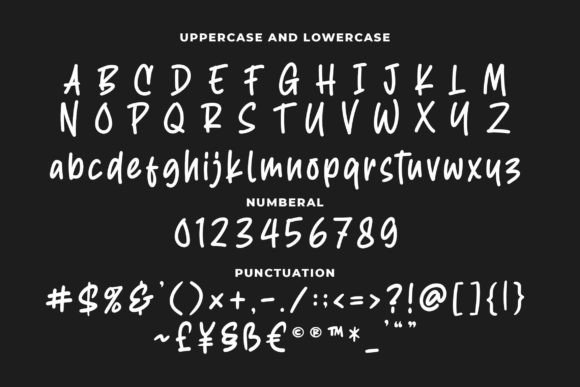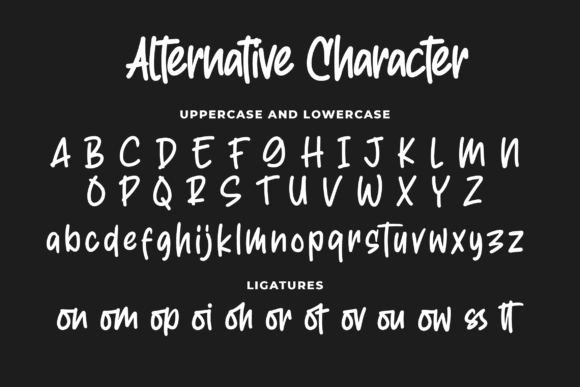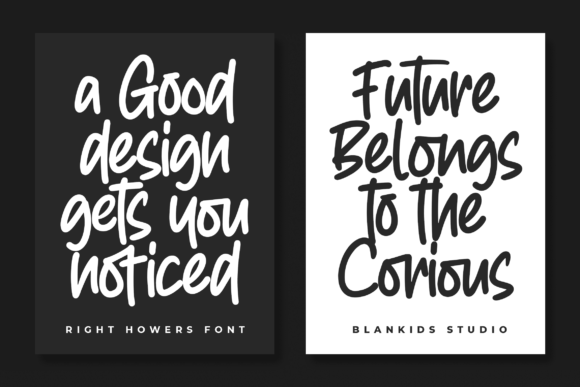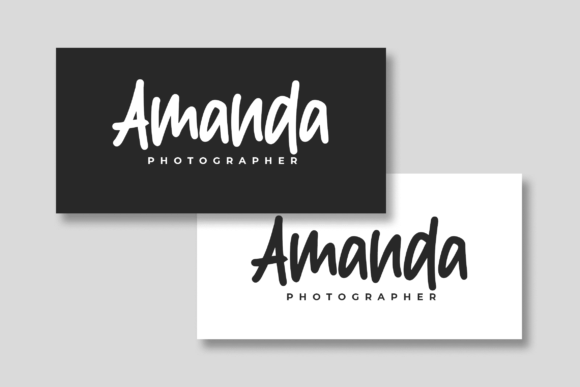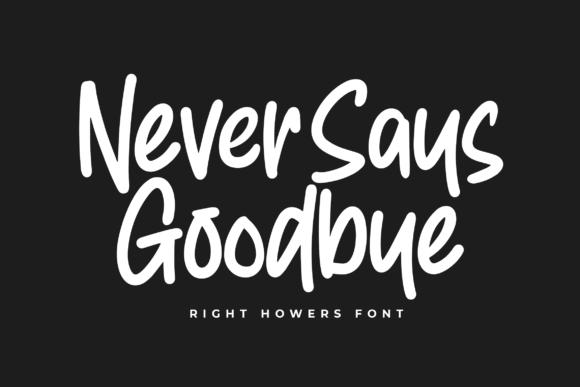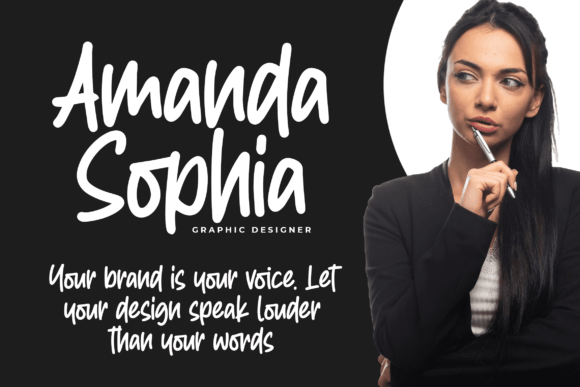
Introduction to Right Howers Font
Have you ever found yourself sitting in front of a blank canvas, trying to come up with the perfect design for a client? You’ve got a great idea, but something’s missing – the perfect font to bring it all together. That’s where Right Howers Font comes in – a stunning handwriting display font that’s sure to elevate your creative project to the next level.
Developed by the talented team at Blankids Studio, Right Howers Font is a high-quality design resource that’s perfect for any professional project branding. From logotype to watermarks, posters to product packaging, this versatile font is sure to impress. And the best part? It’s available for free download, making it an accessible and valuable addition to any designer’s toolkit.
Key Features of Right Howers Font
- Transparent background for seamless integration with creative projects
- High-quality design resource ideal for various creative projects
- Includes a range of font sizes and resolutions for optimal display
- Unique, hand-drawn design style suitable for creative and artistic projects
- Compatible with a wide range of design software and operating systems
- Available in a range of font styles, including bold, regular, and italic
Honest Review: Right Howers Font
As a designer, I’m always on the lookout for high-quality fonts that can elevate my creative projects. I recently stumbled upon the Right Howers Font, and I must say, it’s been a game-changer for me.
What works well: ✨ The font is incredibly versatile and can be used for a wide range of creative projects, from logos to brochures. It’s also available for free download, which is a huge bonus. The transparent background feature allows for seamless integration with any design element, making it a design resource that’s hard to resist.
- Transparent background for easy integration with design elements
Limitations: ⚠️ While the Right Howers Font is incredibly versatile, it’s not ideal for complex typography projects. The font’s simplicity can make it feel a bit bland in certain situations.
Overall impression: I’m thoroughly impressed with the Right Howers Font. Its high quality, versatility, and free download make it an invaluable design resource. While it may not be perfect for every project, it’s definitely worth adding to your design arsenal.
Getting the Most Out of Right Howers Font
To get the most out of Right Howers Font, experiment with different font sizes, colors, and styles to create visually appealing designs. You can also combine Right Howers Font with other design resources to add depth and creativity to your projects.
Right Howers Font is ideal for a variety of creative projects, including:
- Social media graphics and advertisements
Alternatives to Right Howers Font
Great Vibes is a high-quality, handwritten font perfect for creative projects requiring a unique and elegant touch. It’s ideal for use on a transparent background, adding a personal touch to invitations, quotes, or social media graphics. Great Vibes offers a free download option, making it an excellent alternative to Right Howers Font for designers on a budget.
Compared to Right Howers Font, Great Vibes has a more refined and sophisticated look, with subtle variations in line width and letter spacing that add to its charm. While Right Howers Font is great for casual, playful designs, Great Vibes is better suited for more formal or artistic projects.
Alex Brush is a beautiful, calligraphic font that exudes elegance and sophistication. It’s perfect for designers working on high-end creative projects, such as luxury brand identities, wedding invitations, or high-end editorial designs. Alex Brush is available for free download and offers a high-quality, transparent background option.